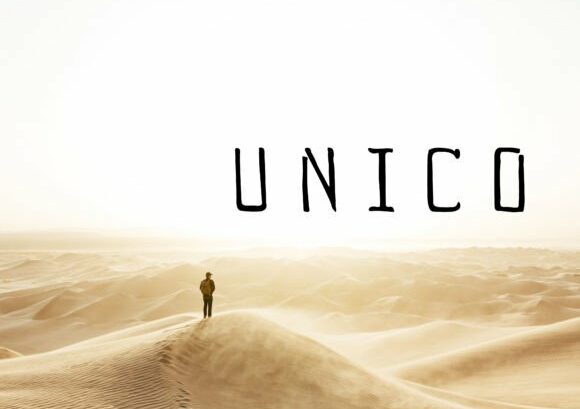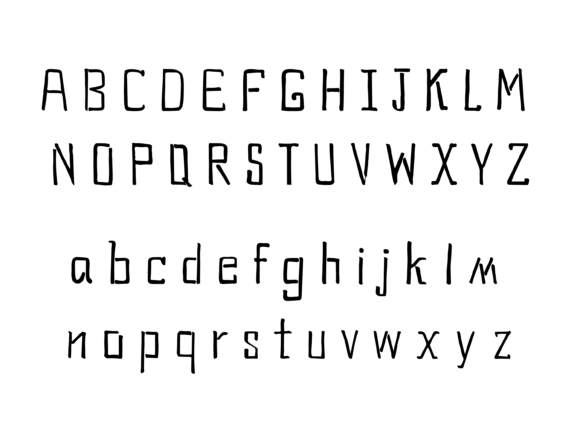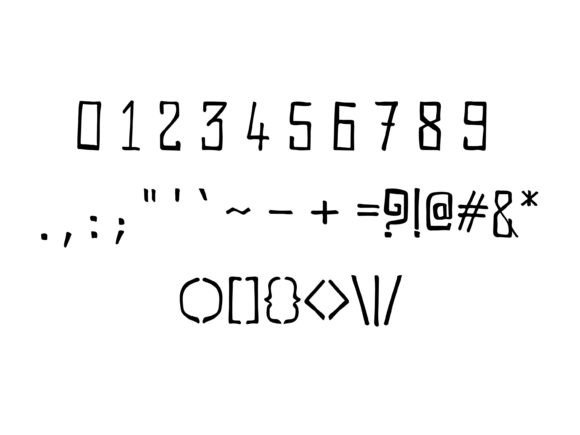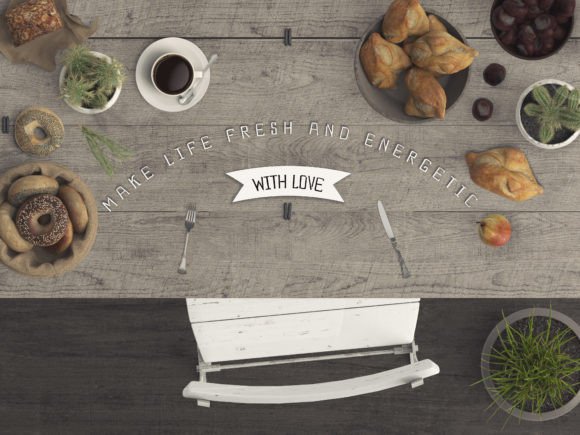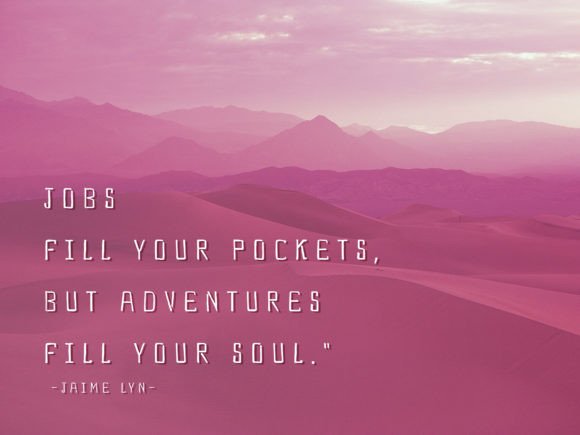
Unico Font
UNICO FONT SPECIMEN
Unico is a slab serif font featuring letters that look challenging and adventurous. Suitable for book covers, nonfiction novel covers, and other interesting projects.